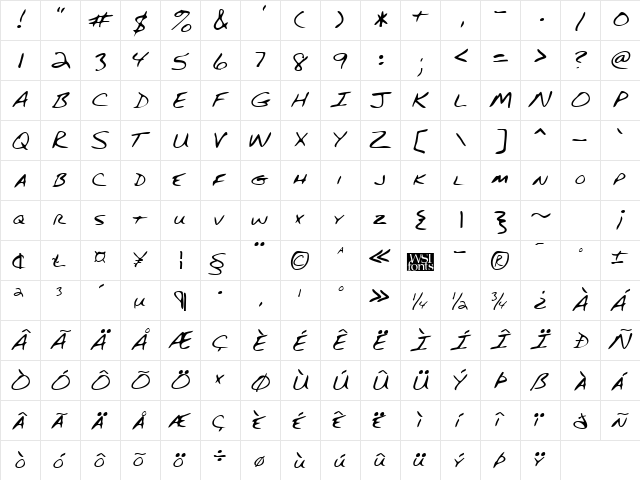
EliottsHand Regular
Design Context for EliottsHand Typeface
EliottsHand flows with the natural rhythm of handwritten lettering, making it ideal for designs that call for warmth and personal expression.
Font Pairing: Combine EliottsHand with a simple geometric sans for maximum contrast — the tension between flowing curves and clean structure is a classic typographic pairing.
Pro Tip: Pair EliottsHand with a clean sans-serif for supporting text. The contrast between fluid script and geometric structure creates an elegant typographic hierarchy.